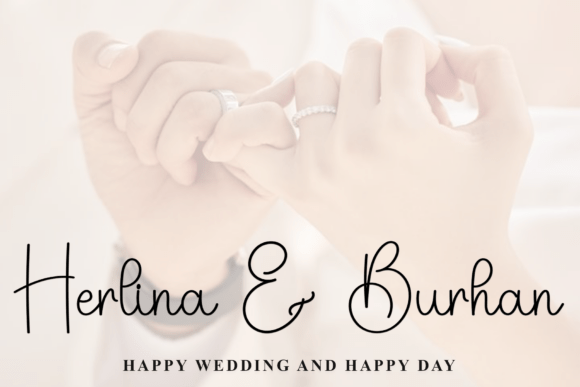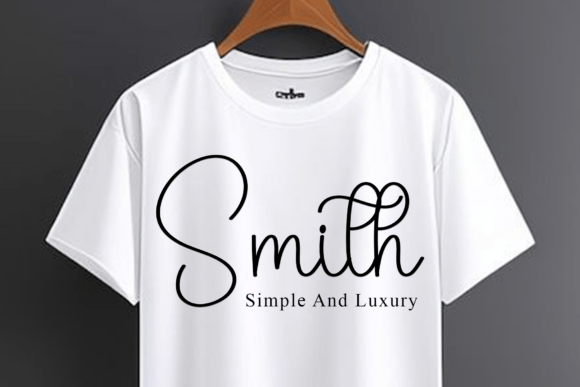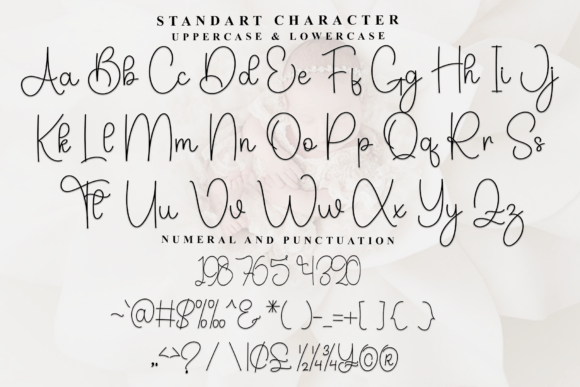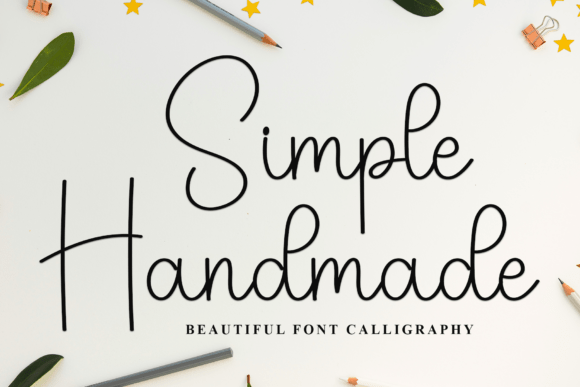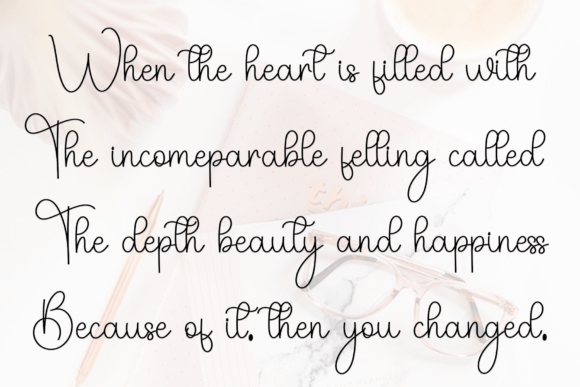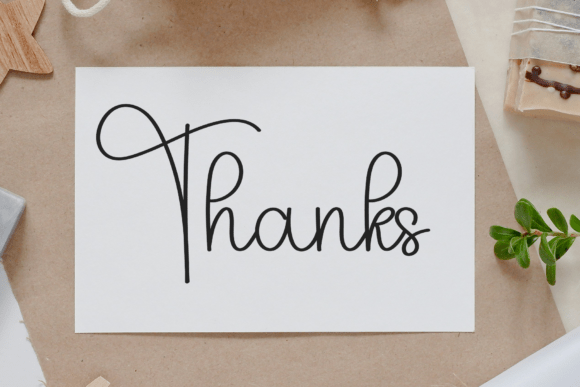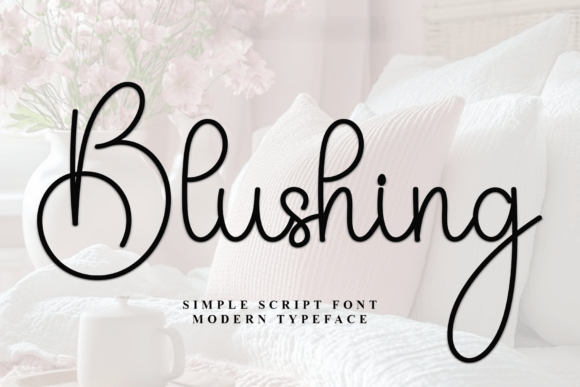
Introducing Blushing Font: The Epitome of Elegance and Sophistication
In the realm of typography, few fonts capture the essence of romance and femininity as exquisitely as Blushing Font. This delicate and elegant script font, infused with a modern twist, has been making waves in the design community for its unparalleled beauty and versatility. Whether you’re a designer, crafter, or simply a connoisseur of fine typography, Blushing Font is sure to captivate your senses and inspire your creative projects.
The Characteristics of Blushing Font
Blushing Font boasts a distinctive set of characteristics that set it apart from other script fonts. Its flowing lines and graceful presence evoke a sense of sophistication and refinement, making it an ideal choice for projects that demand a touch of elegance. The font’s modern twist ensures that it remains fresh and relevant, while its classic undertones provide a timeless appeal that transcends fleeting trends.
Perfect for Weddings and Romantic Occasions
One of the most notable applications of Blushing Font is in wedding designs. The font’s romantic and feminine charm makes it an excellent choice for wedding invitations, save-the-date cards, and other stationery. Its delicate lines and flowing curves evoke a sense of whimsy and wonder, perfectly capturing the magic of the special day. Moreover, Blushing Font’s versatility allows it to be used in a variety of contexts, from formal wedding announcements to more casual, bohemian-inspired celebrations.
Beyond Weddings: Exploring Other Uses for Blushing Font
While Blushing Font shines in wedding designs, its applications extend far beyond the realm of matrimony. This font is equally at home in social media graphics, branding materials, and packaging designs. Its elegant presence and modern flair make it an excellent choice for businesses and individuals seeking to establish a strong visual identity. Whether you’re a fashion brand, beauty expert, or lifestyle influencer, Blushing Font can help you convey your message with style and sophistication.
What Makes Blushing Font So Special?
So, what sets Blushing Font apart from other fonts in its class? Here are a few factors that contribute to its unique charm:
- Delicate lines and curves: Blushing Font features intricate, hand-crafted lines and curves that imbue it with a sense of elegance and refinement.
- Modern twist: The font’s modern undertones ensure that it remains fresh and relevant, while its classic characteristics provide a timeless appeal.
- Feminine charm: Blushing Font exudes a distinctly feminine charm, making it an excellent choice for projects that require a touch of softness and sophistication.
- Versatility: This font is incredibly versatile, allowing it to be used in a wide range of contexts, from formal to informal, and from digital to print.
Tips for Using Blushing Font Effectively
To get the most out of Blushing Font, here are a few tips to keep in mind:
- Pair it with complementary fonts: Blushing Font pairs beautifully with clean, sans-serif fonts like Arial, Helvetica, or Open Sans. Experiment with different combinations to find the perfect match for your project.
- Use it sparingly: While Blushing Font is undoubtedly stunning, it’s essential to use it judiciously. Too much of a good thing can be overwhelming, so balance it with more straightforward typography to create visual interest.
- Experiment with colors and textures: Blushing Font looks beautiful in a variety of colors and textures. Don’t be afraid to experiment with different effects to add depth and visual interest to your design.
Blushing Font is a true gem in the world of typography. Its delicate lines, flowing curves, and modern twist make it an excellent choice for designers, crafters, and anyone seeking to add a touch of elegance and sophistication to their creative projects. Whether you’re working on a wedding design, social media graphics, or branding materials, Blushing Font is sure to captivate your audience and leave a lasting impression. So why wait? Discover the beauty of Blushing Font today and elevate your designs to new heights!